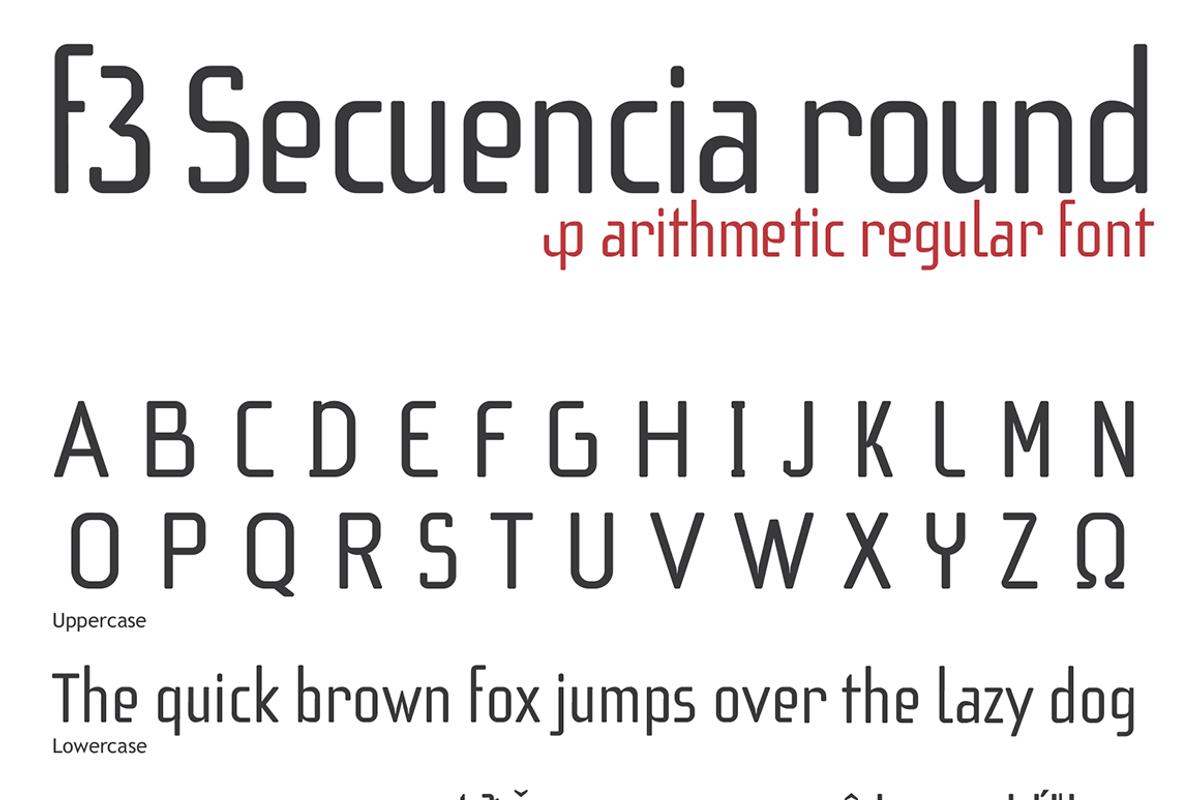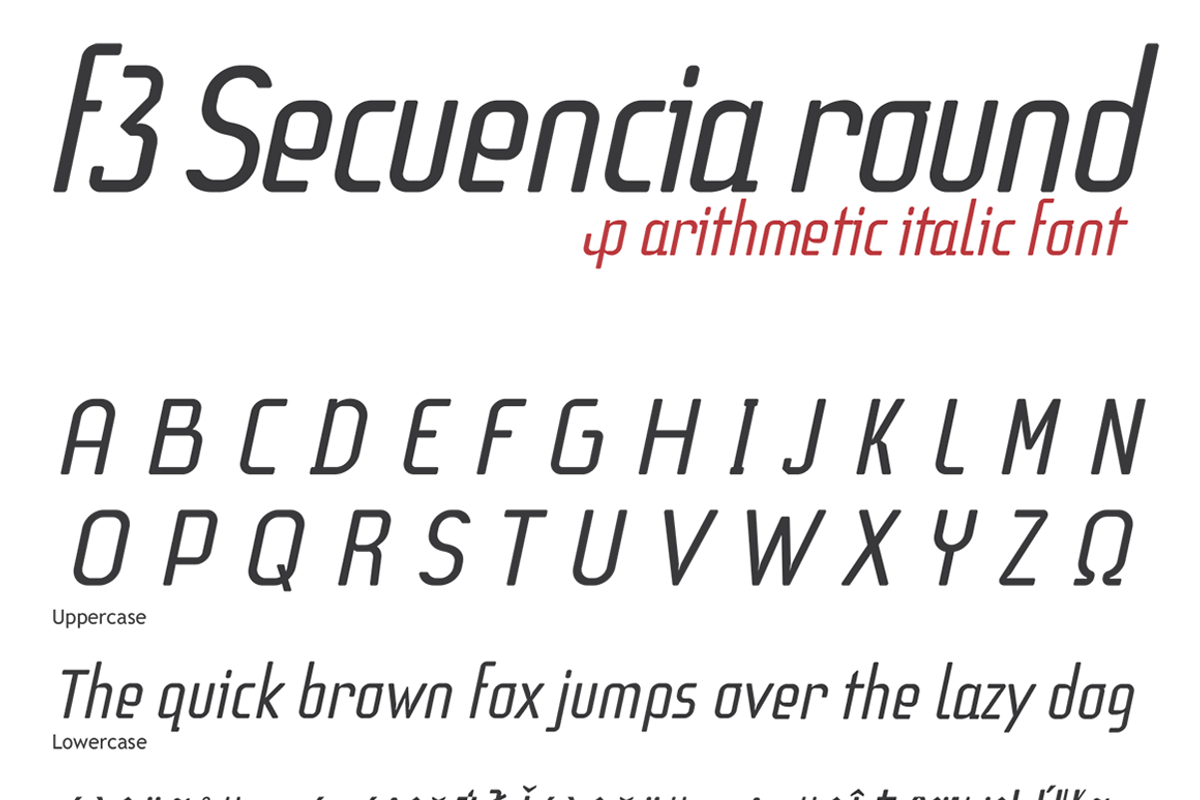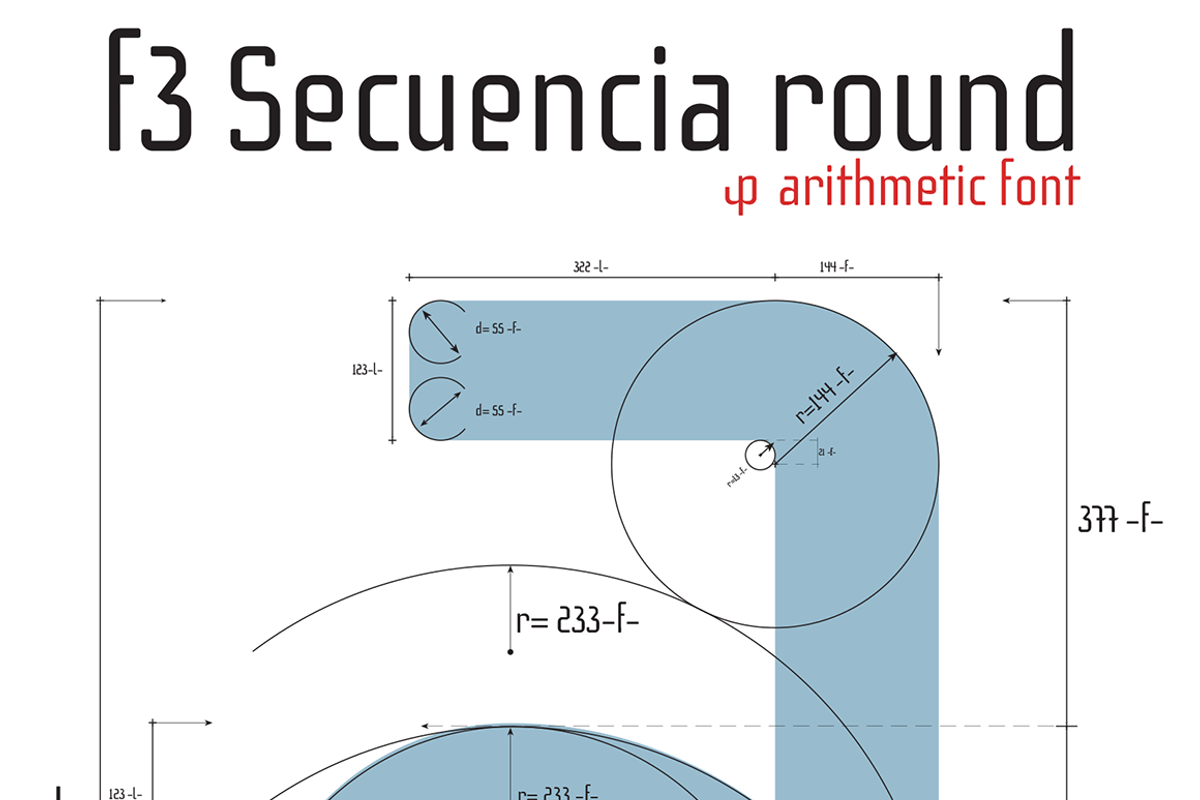
f3 Secuencia Round font
f3 Secuencia Round font by deFharo is a font selected for branding, posters, packaging, typography.
- Alternative characters Greek characters Numbers old style Numbers Small Caps Ligatures Fractions Currencies Denominators Numerators Latin-Ex
f3 Secuencia Round font by deFharo fits naturally into Branding, posters, packaging, typography.